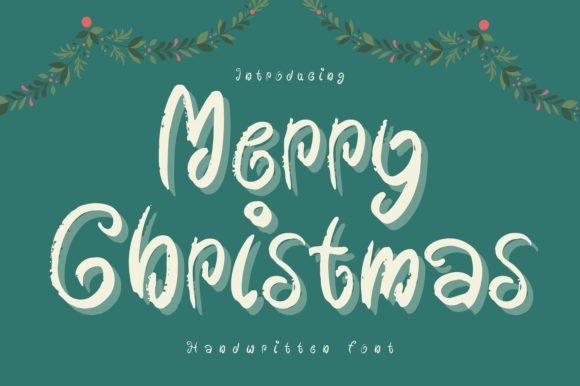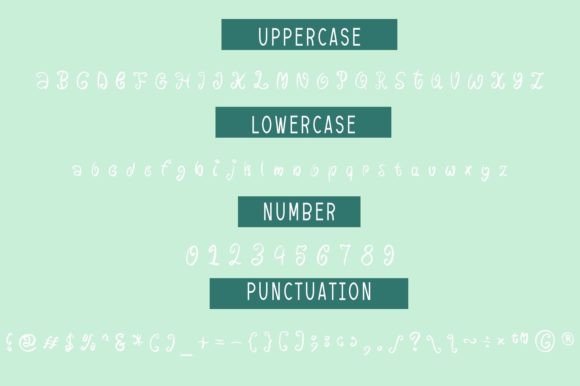
About Merry Christmas Font
Merry Christmas is a cute and festive handwritten font. The lightness of its characters makes it suitable for a wide range of design projects. It embodies playfulness and authenticity and is the perfect choice for all your favorite projects, or even for blog posts, logos, branding, ads, invitations, greeting cards, planners, photo albums, decorations, and much more. Add it to any of your designs, and enjoy the results!